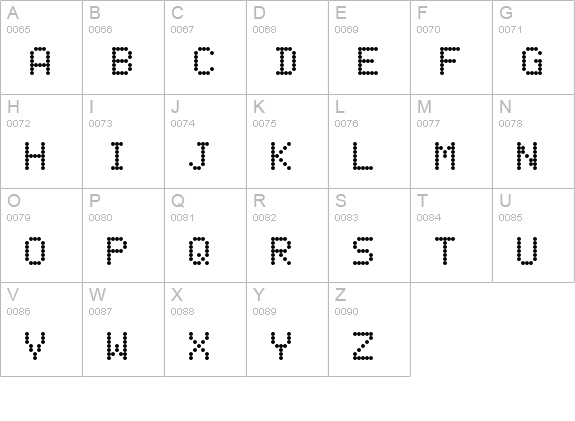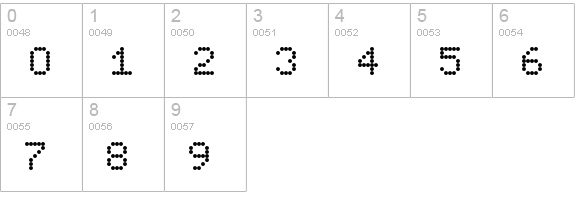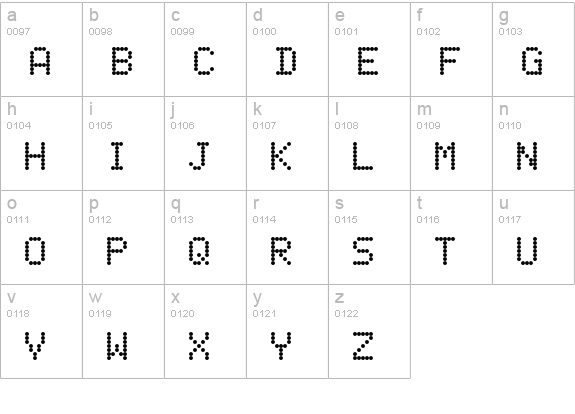
ReceiptDemo Font Details
ReceiptDemo is a charming and versatile font that is perfect for adding a touch of vintage flair to your designs. With its unique and playful letterforms, this font captures the essence of old-fashioned receipts and adds a nostalgic charm to any project. This font is not only aesthetically pleasing but also highly functional. Its clear and legible letterforms make it suitable for a wide range of applications, from branding and packaging to posters and social media graphics. Whether you are creating a retro-themed design or simply want to add a touch of character to your work, ReceiptDemo is the perfect choice. One of the best things about ReceiptDemo is that it is completely free. You can easily download it from FontsMarket.com, making it accessible to everyone. This means that you can use this font in your personal and commercial projects without any restrictions. Whether you are a professional designer or a hobbyist, ReceiptDemo is a valuable addition to your font library. So why wait? Download ReceiptDemo today and add a touch of vintage charm to your designs. Experiment with its various weights and styles to create unique and eye-catching compositions. With ReceiptDemo, the possibilities are endless.